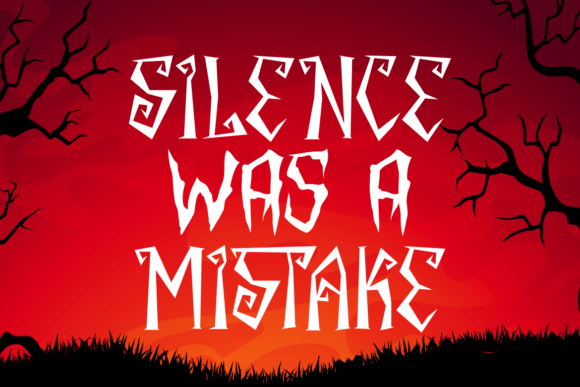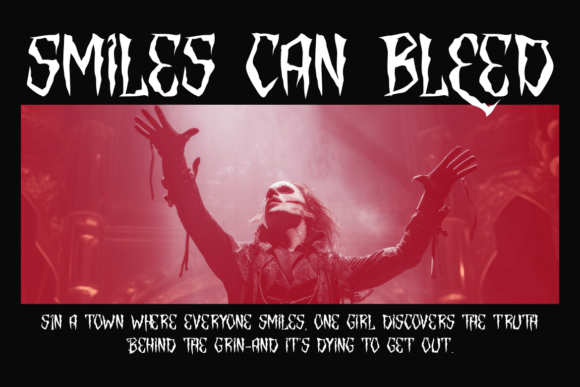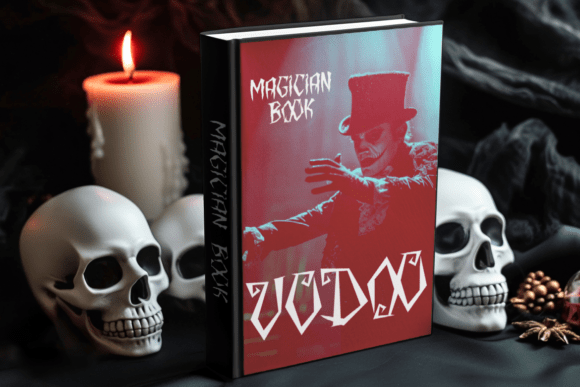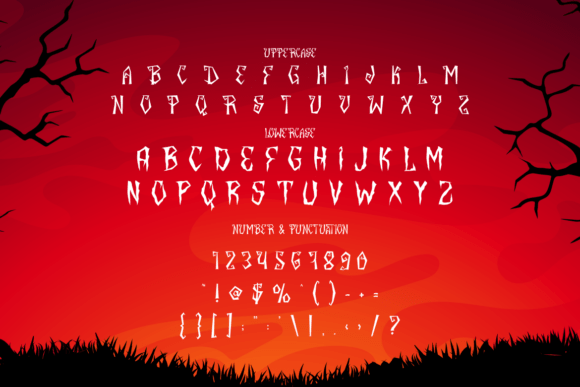
Crypt Horror Font: Unleash the Terror in Your Designs
Are you looking for a font that will send shivers down the spine of your audience? Look no further than the Crypt Horror font, a terrifyingly sharp horror display font designed to deliver chills with every letter. This font is perfect for designers and crafters who want to add a touch of eeriness to their horror-themed compositions, Halloween merchandise, creepy book covers, and eerie movie titles.
The Inspiration Behind Crypt Horror
Crypt Horror was designed with one goal in mind: to evoke the eerie feeling of haunted woods, cursed rituals, and sinister secrets. The font features twisted, jagged serifs and uneven cuts that give it a unique, unsettling feel. Each letterform is carefully crafted to scream intensity, with some featuring claw-like curves and others sporting gothic-style spikes. The result is a font that is both terrifying and mesmerizing.
Key Features of Crypt Horror
- Twisted, jagged serifs and uneven cuts: These features give the font its unique, eerie feel and set it apart from other horror fonts.
- Angular, high-contrast strokes: These add a sinister edge to the font, making it perfect for horror-themed designs.
- Erratic baselines: These bring a chaotic energy to your layout, adding to the overall sense of unease.
- Uppercase and lowercase characters, numerals, and punctuation symbols: The font includes a full range of characters, each crafted to look like they’ve crawled out from the grave.
Uses for Crypt Horror
Crypt Horror is a versatile font that can be used in a variety of design projects, including:
- Horror posters and flyers: Create eye-catching posters and flyers that will grab the attention of horror fans.
- Halloween merchandise: Use Crypt Horror to create spooky t-shirts, stickers, and other Halloween-themed items.
- Creepy book covers: Add a touch of eeriness to your book covers with Crypt Horror.
- Eerie movie titles: Use Crypt Horror to create terrifying movie titles that will set the tone for your film.
- Branding campaigns: Use Crypt Horror to create a bold, eye-catching brand identity.
- Sticker designs: Create spooky stickers that will add a touch of horror to any design project.
- Dark-themed invitations: Use Crypt Horror to create invitations that will set the tone for a dark, eerie event.
- Thriller headlines: Add a touch of suspense to your headlines with Crypt Horror.
- Edgy underground band logos: Use Crypt Horror to create bold, eye-catching logos for underground bands.
Why Choose Crypt Horror?
There are many horror fonts to choose from, but Crypt Horror stands out from the rest. Here are just a few reasons why:
- Unique design: Crypt Horror features a unique, twisted design that sets it apart from other horror fonts.
- High-quality characters: Each character is carefully crafted to ensure that it looks great in any design project.
- Versatility: Crypt Horror can be used in a variety of design projects, from horror posters to edgy band logos.
If you’re looking for a font that will add a touch of horror to your design projects, look no further than Crypt Horror. With its twisted, jagged serifs and uneven cuts, this font is sure to deliver chills with every letter. Whether you’re designing a horror poster, a creepy book cover, or an eerie movie title, Crypt Horror is the perfect choice. So why wait? Download Crypt Horror today and unleash the terror in your designs.